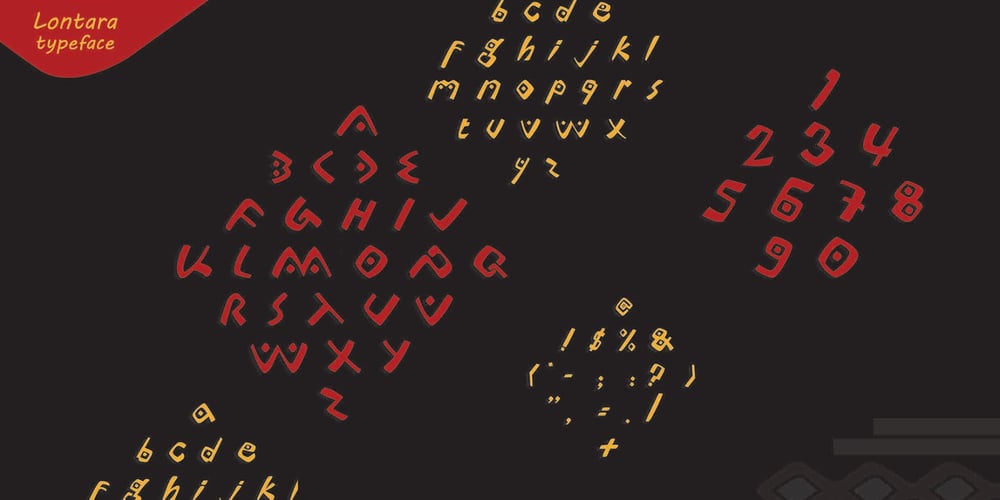
Lontara Font Family was designed by Triden Tan and published by Triden Works. Lontara contains 1 styles and family package options. PREFACELontara typeface shape is originally created by freehand technique, without modify other exist digital typeface. It purely inspired by traditional Lontara manuscript, South Sulawesi.Lontara typeface is dedicated for originality of Indonesian Cultural.ORIGINSThe La Galigo that written in traditional Lontara script is widely believed by people Buginese as a bible of sacred and should not be read without a certain ritual preceded.It tells the story of hundreds of descendants of the gods who live at a time for 6 (six), hereditary generation, the various kingdoms in South Sulawesi and the surrounding islands. The Lontara script is an Brahmic script traditionally used for the Bugis language, Makassarese language, and Mandar languages of Sulawesi in modern Indonesia. It is also known as the Buginese script. It was largely replaced by the Latin alphabet during the period of Dutch colonization.